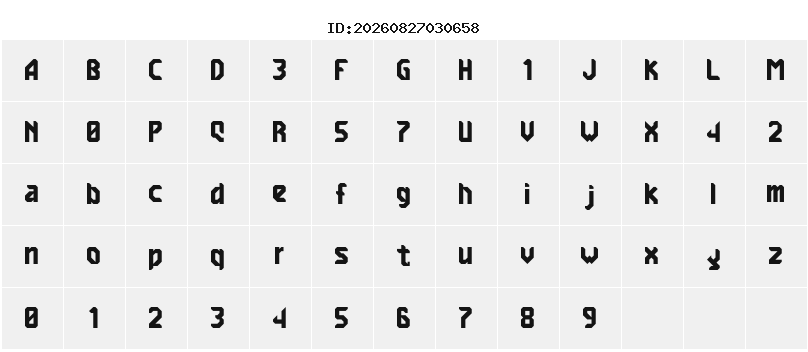
• Font Name: 7ABL3
• Designer: joaquim ramalho
7ABL3.ttf is a modern, elegant sans-serif font designed for ultimate readability and visual harmony. Perfect for branding, headlines, web design, and print materials.